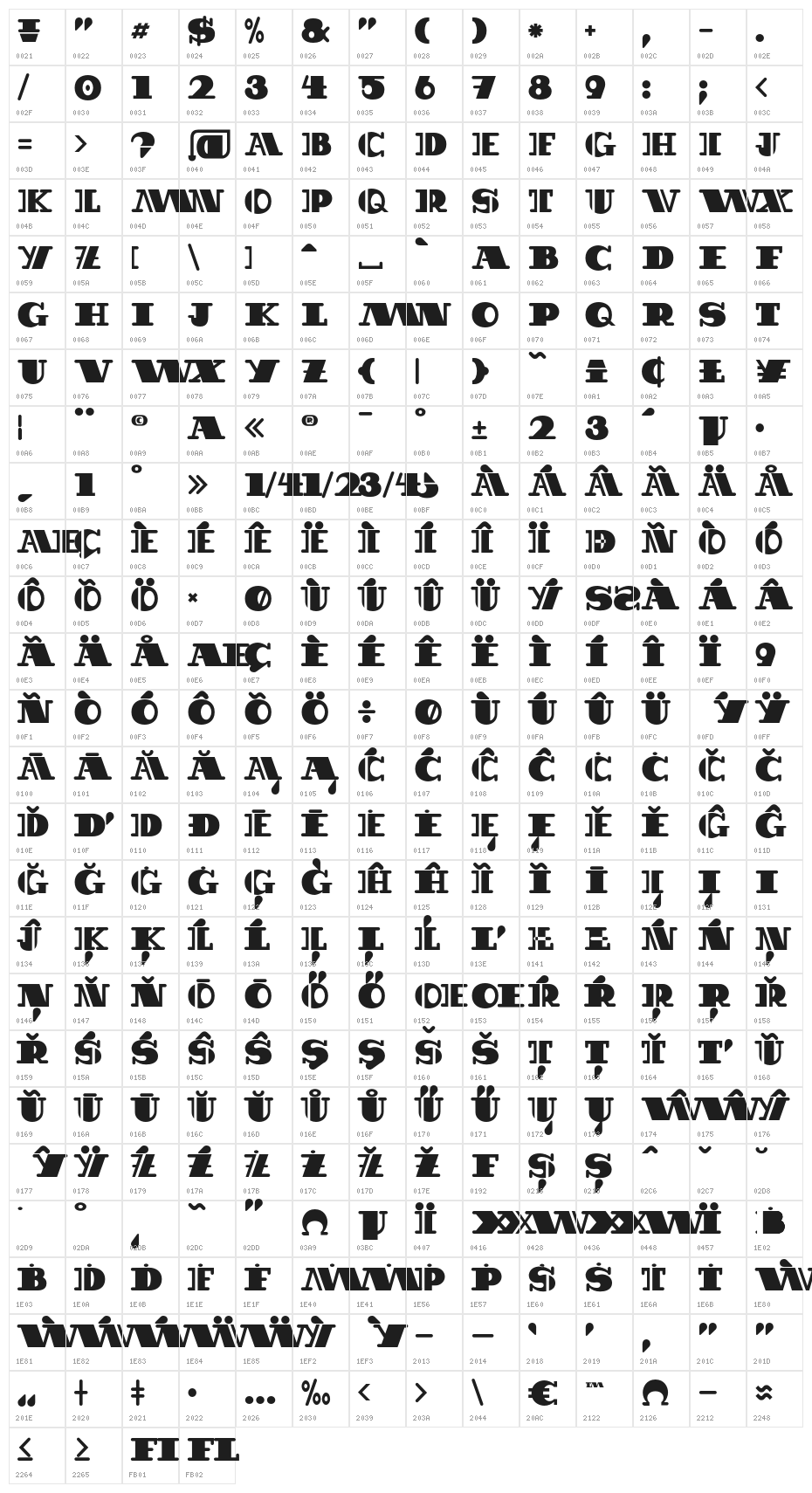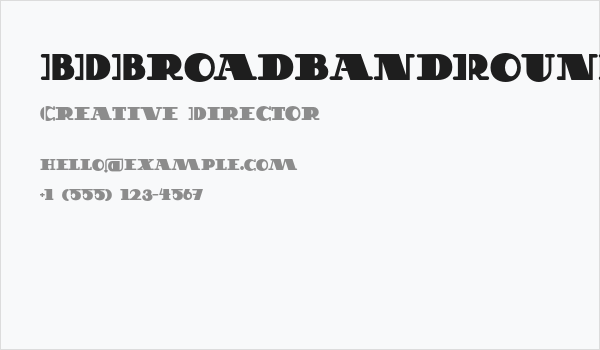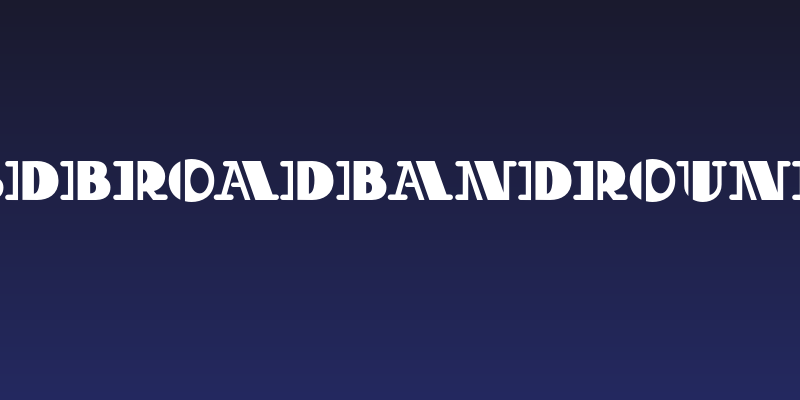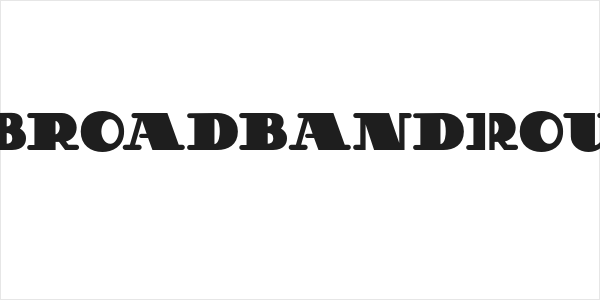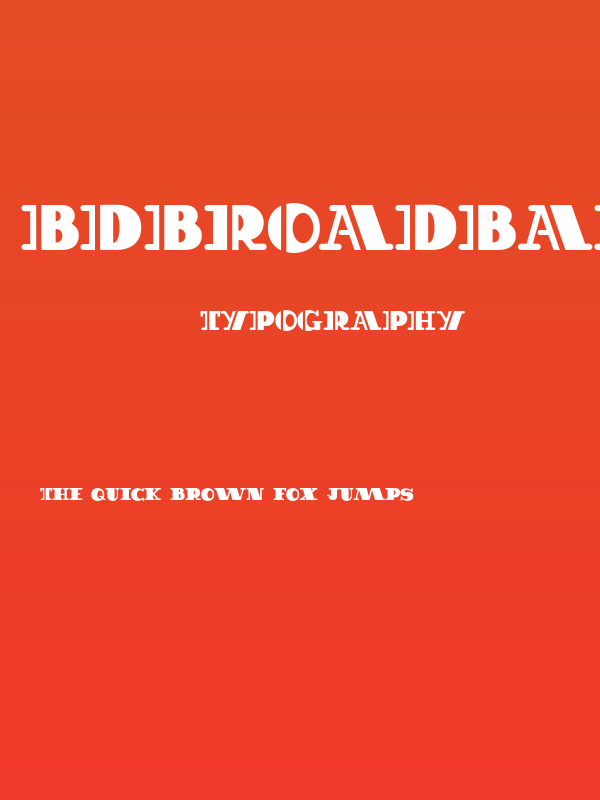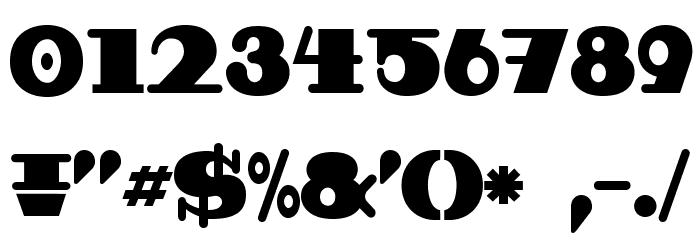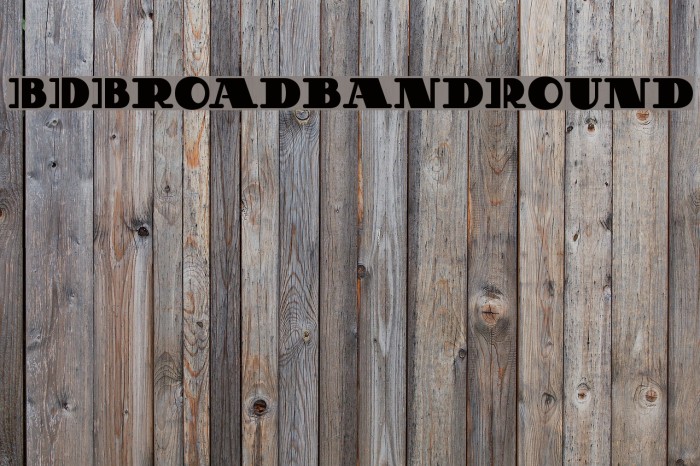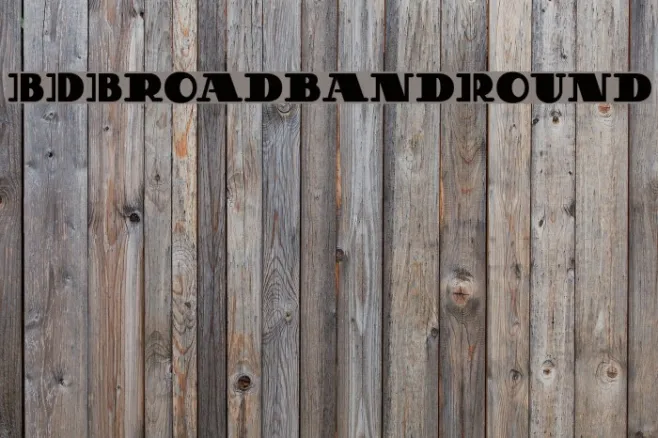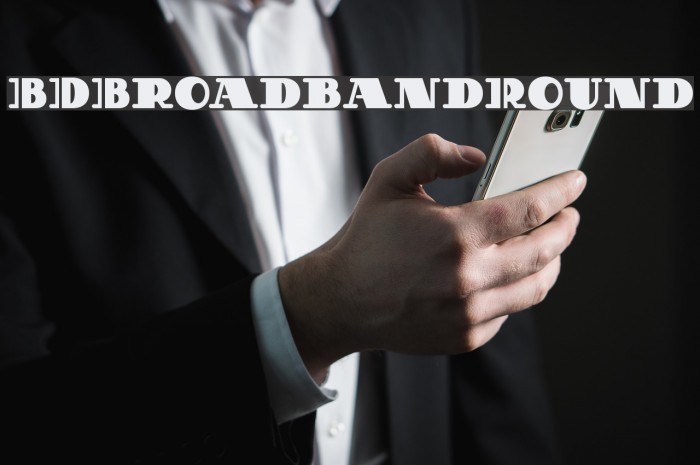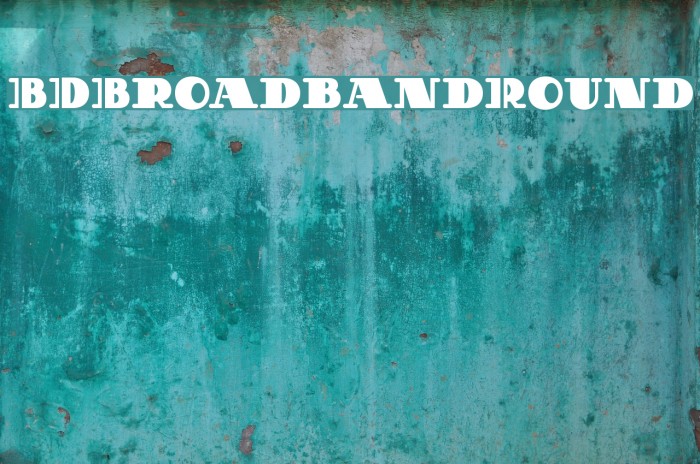
BDBroadbandRound Font
BDBroadbandRound Description
This font features a bold and impactful design with a unique stencil-like appearance. The characters are constructed with thick, solid strokes and distinct cutouts that create a dynamic and industrial feel. The uppercase letters are particularly striking, with sharp angles and a strong presence. The numerals and special characters maintain the same boldness, ensuring consistency across all text elements. This font's design is both modern and retro, making it versatile for various creative applications.
| Overall Style | Modern, Industrial |
| Proposed Projects | Ideal for branding, posters, headlines, and any project requiring a bold, industrial aesthetic. |